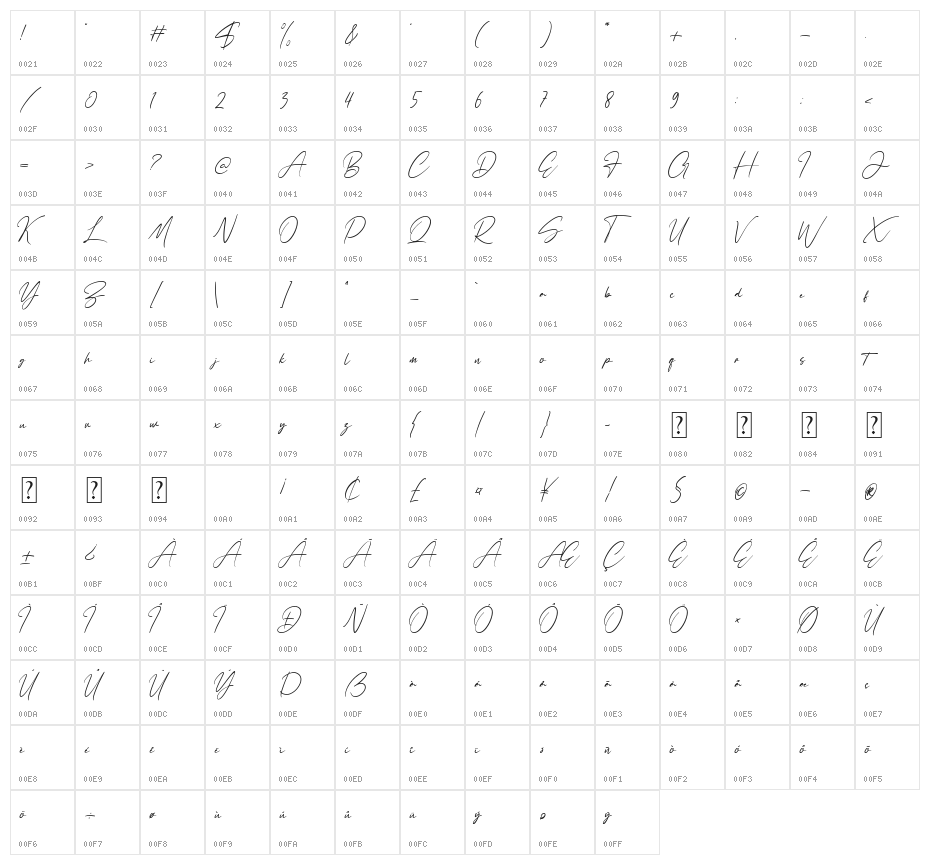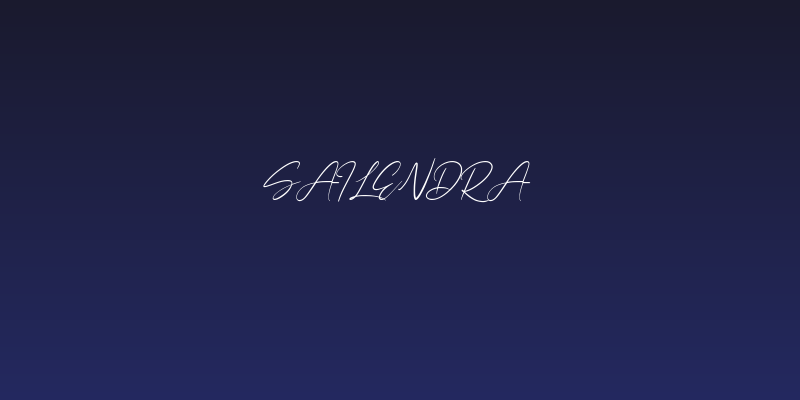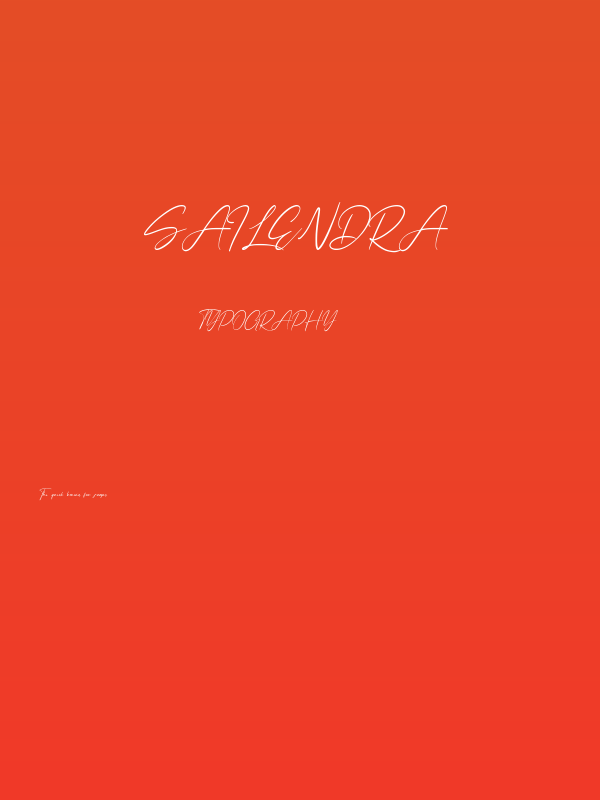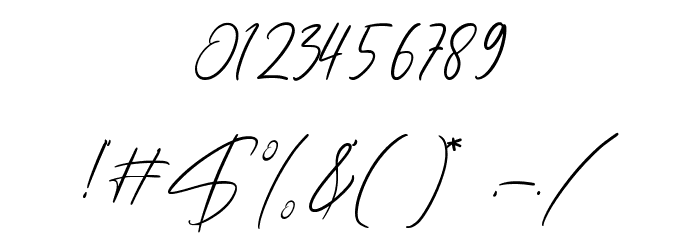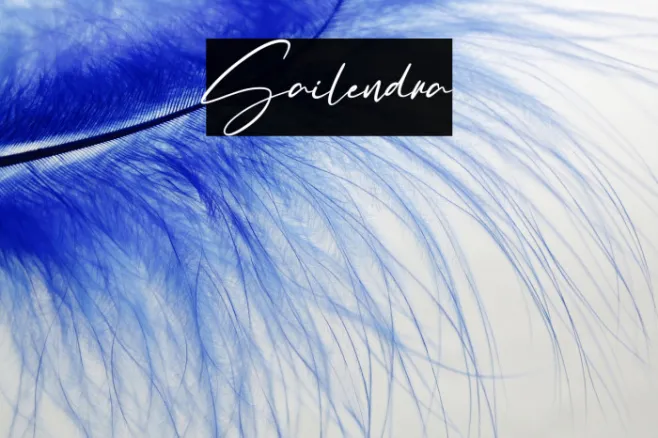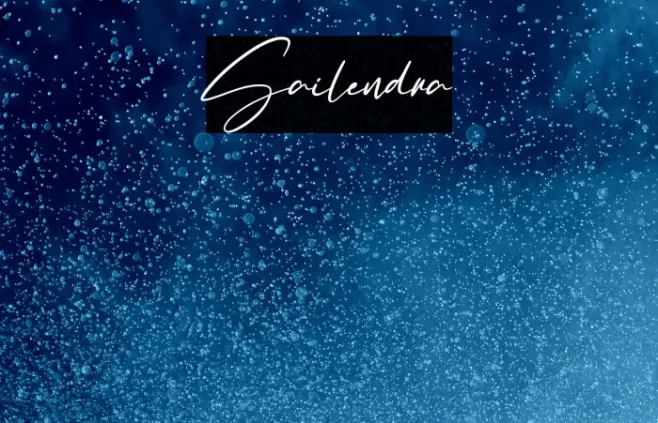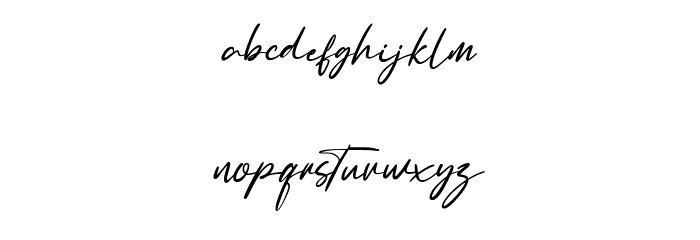
Sailendra Font
Sailendra Description
This font exudes elegance and fluidity, characterized by its cursive, handwritten style. The letters are interconnected with smooth, flowing strokes that give it a sophisticated and artistic appearance. The uppercase letters are tall and graceful, while the lowercase letters maintain a consistent rhythm and balance. The numerals and special characters are designed to complement the overall aesthetic, maintaining the same fluidity and elegance. This font is perfect for projects that require a personal touch or a sense of refinement.
| Proposed Projects | Ideal for wedding invitations, greeting cards, branding, and elegant logo designs. |